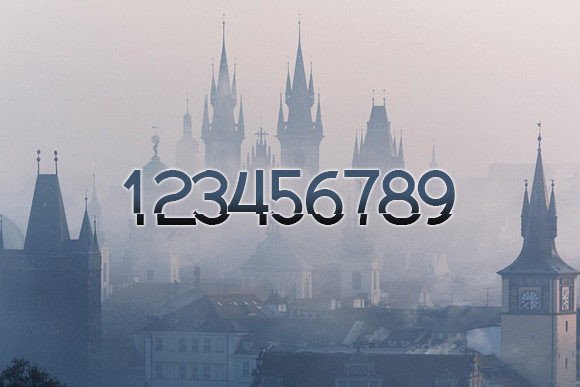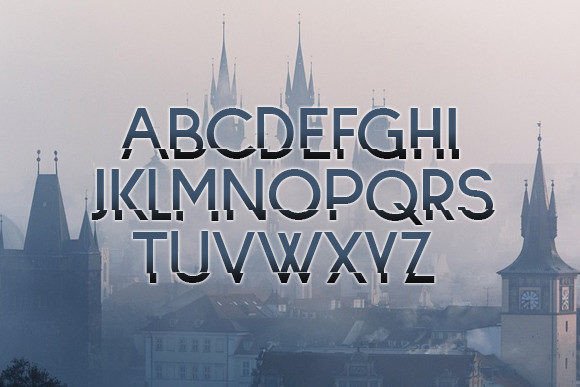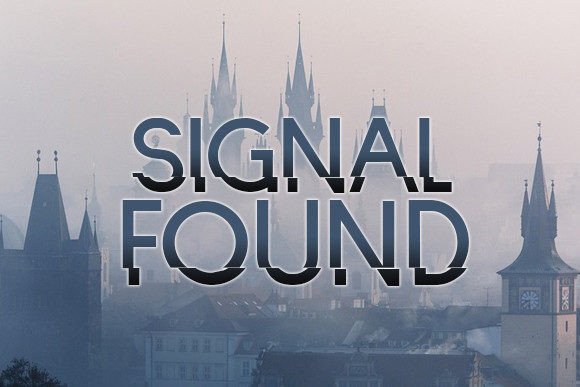
The Perfect Distortion: Elevate Your Designs with Antenna Font
Have you ever been stuck on a design project, searching for that one special element to bring it to life? You know, that moment when everything clicks into place and your vision starts to take shape? For designers, this is the holy grail – and it all comes down to the right typography. This is where the Antenna Font comes in, a distorted typeface that adds a touch of uniqueness to your designs.
Whether you’re creating posters, flyers, or t-shirts, the Antenna Font is the perfect addition to take your work to the next level. Its bold, distorted aesthetic sets it apart from more traditional fonts, giving your designs a bold and eye-catching quality that’s sure to grab attention. As a designer, you know how valuable it is to have a versatile font at your disposal – and the Antenna Font is a true gem in this regard.
Antenna Font Key Features
- Font Family: Antenna Font is a sans-serif font family designed for digital use, with multiple weights and styles available.
- Unique Characteristics: Features a distinctive, modern aesthetic with clean lines, geometric shapes, and a subtle nod to industrial design elements, making it suitable for a wide range of digital applications.
- Character Set: Includes a comprehensive character set, covering Latin, Cyrillic, and Greek alphabets, as well as a range of punctuation marks and symbols for international use.
Antenna Font Review
Overall, I think the Antenna font has some great qualities that make it stand out ✨. One of the things that works well is its unique, futuristic feel. It’s perfect for tech-related projects or anything that needs a bit of an edgy vibe.
The font also has a wide range of weights, from light to bold, which makes it super versatile ✨. This means you can use it for everything from headings to body text, and it’ll still look great. Additionally, the font is highly customizable, which is a major plus ✨.
However, there are a few limitations to the Antenna font that I want to mention ⚠️. For one, it can be a bit difficult to read at smaller font sizes. If you’re planning on using it for large blocks of text, you may want to consider a different font ⚠️.
Another issue is that the font can be a bit too “out there” for some projects ⚠️. If you’re looking for something more classic or timeless, Antenna may not be the best choice ⚠️.
- Unique, futuristic feel
- Wide range of weights
- Perfect for tech-related projects
- May be difficult to read at smaller font sizes
- Can be too “out there” for some projects
The Antenna font is ideal for creating a futuristic or technological look in your designs. Here are some common use cases and tips to get the most out of it:
- Use the Antenna font for titles and headings to create a bold and eye-catching effect.
- Pair the Antenna font with other futuristic fonts to create a cohesive look.
- Experiment with different font sizes and colors to achieve the desired effect.